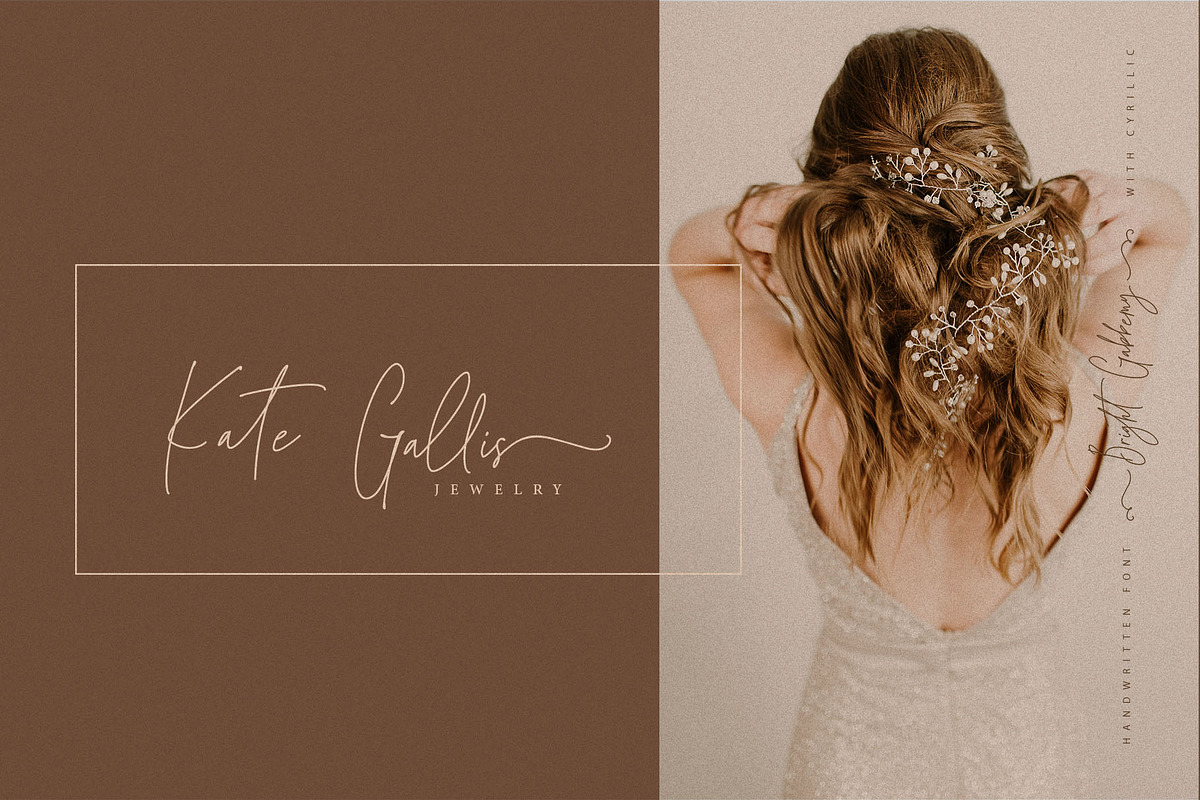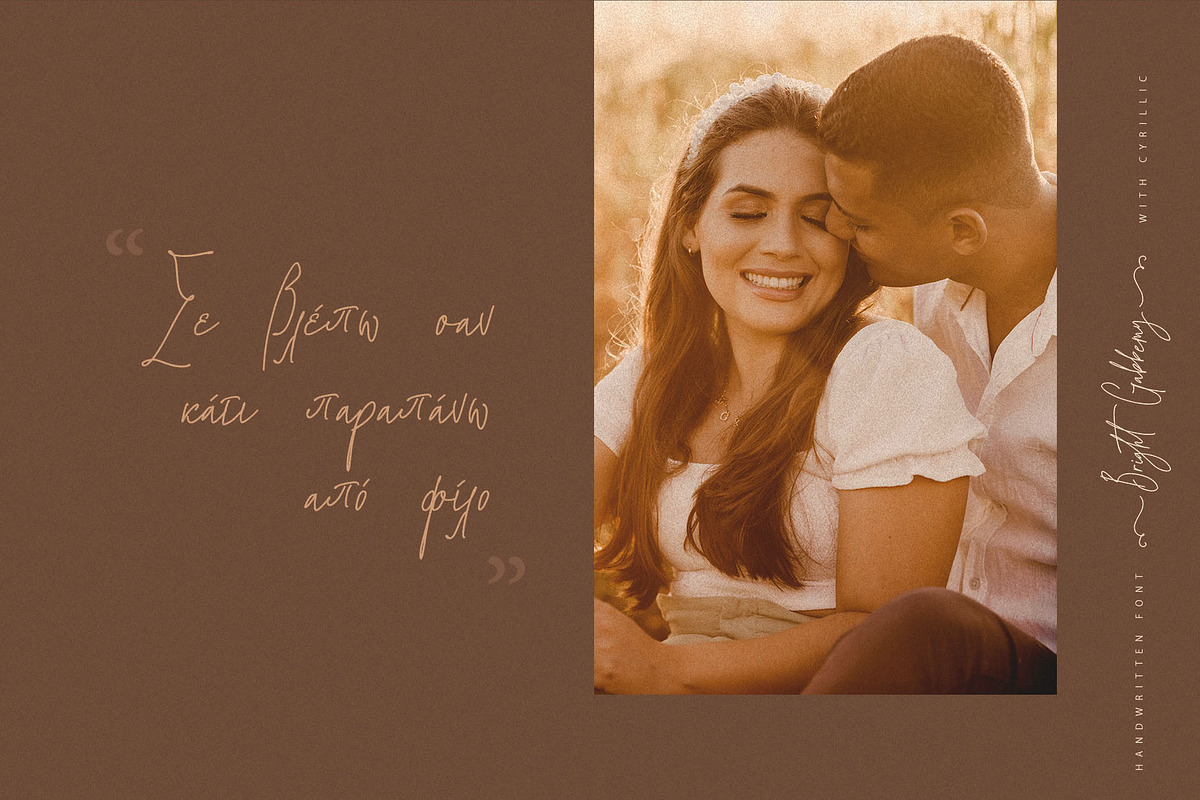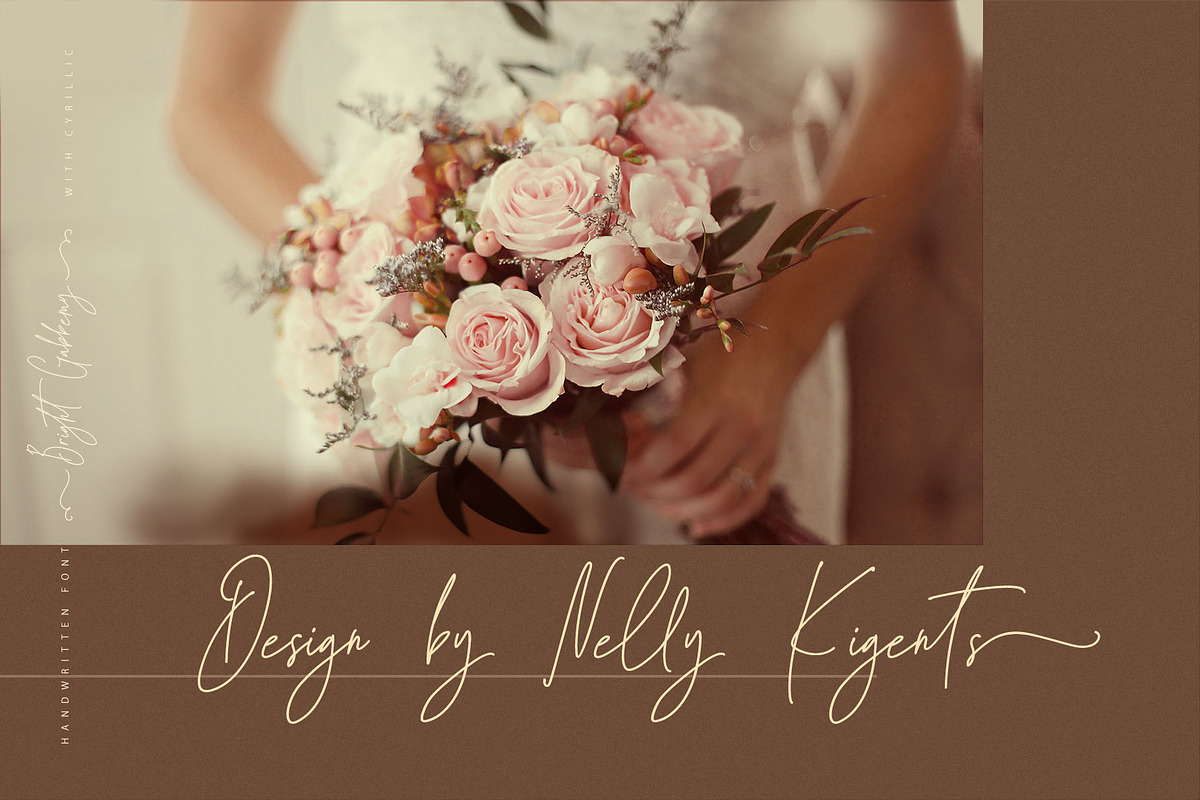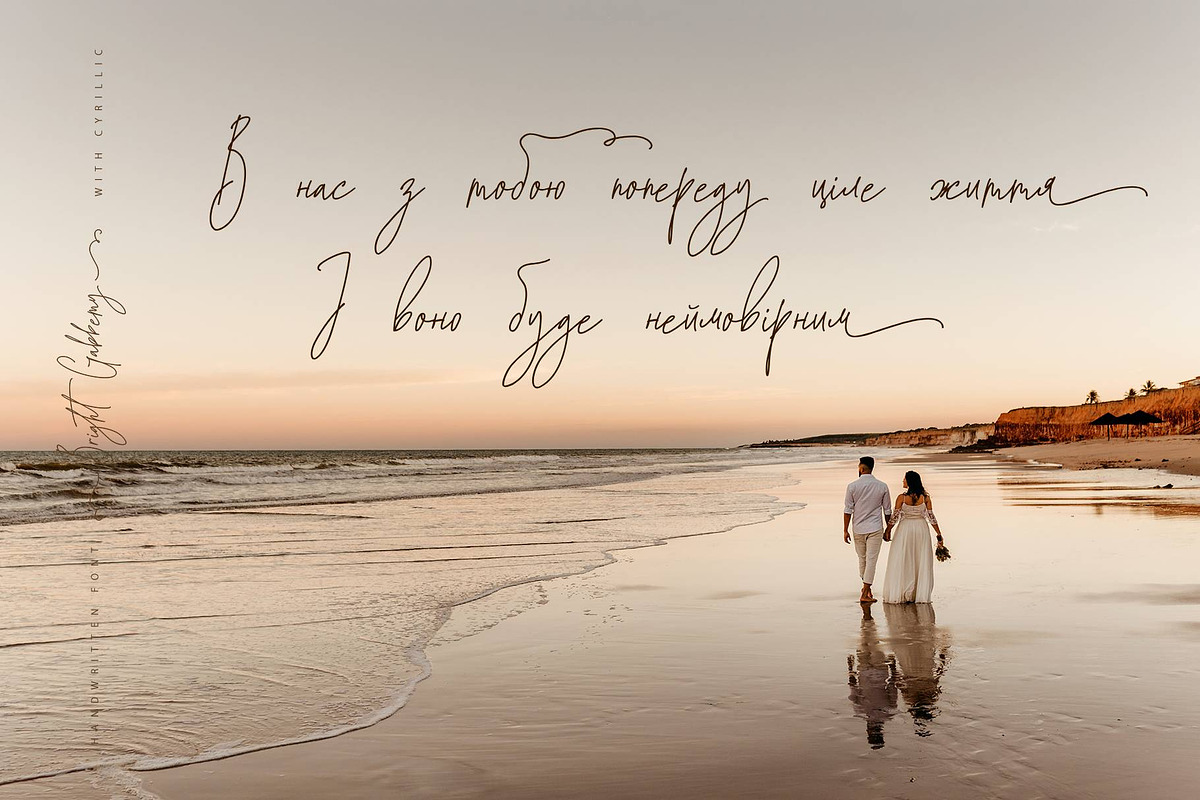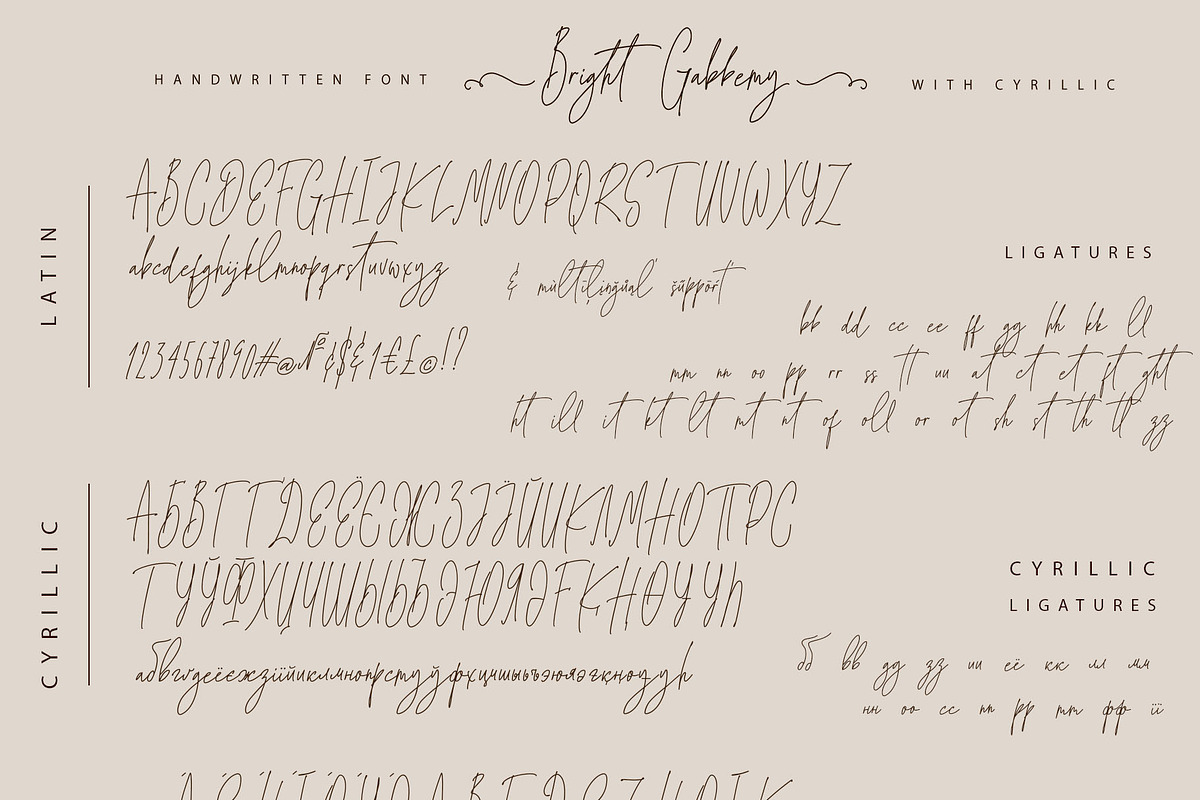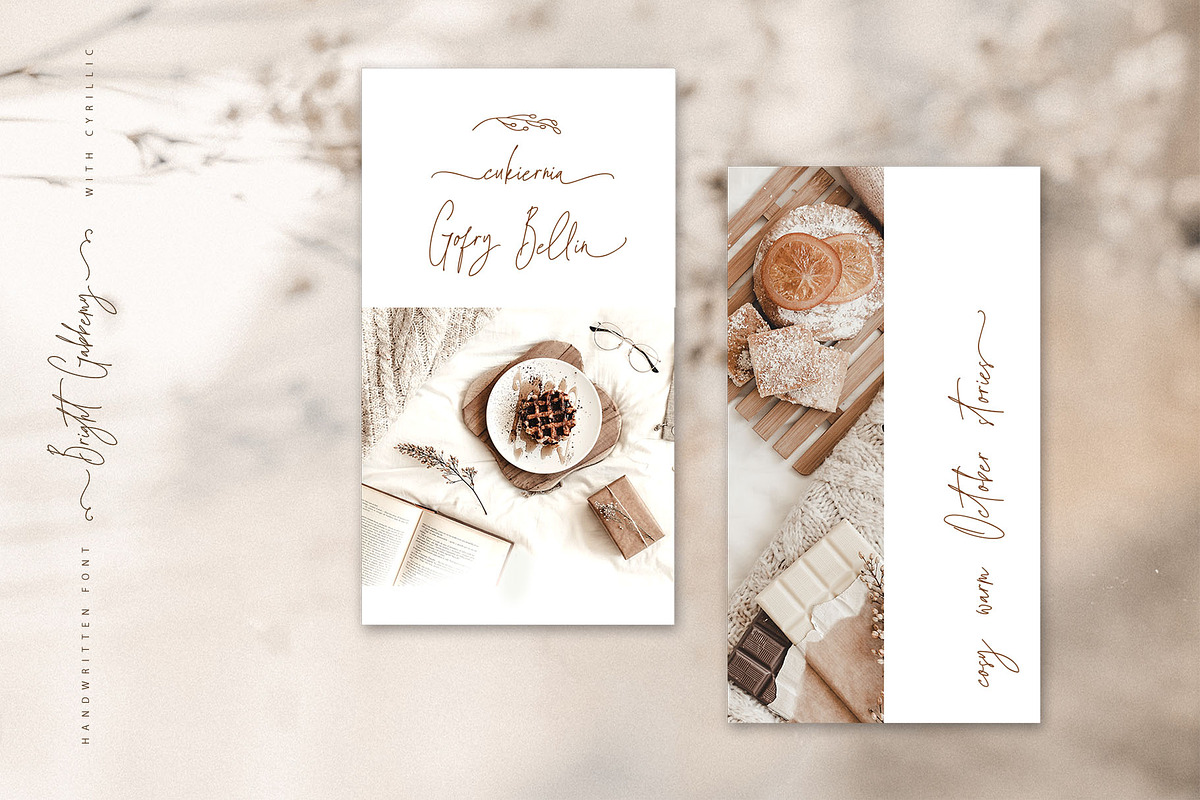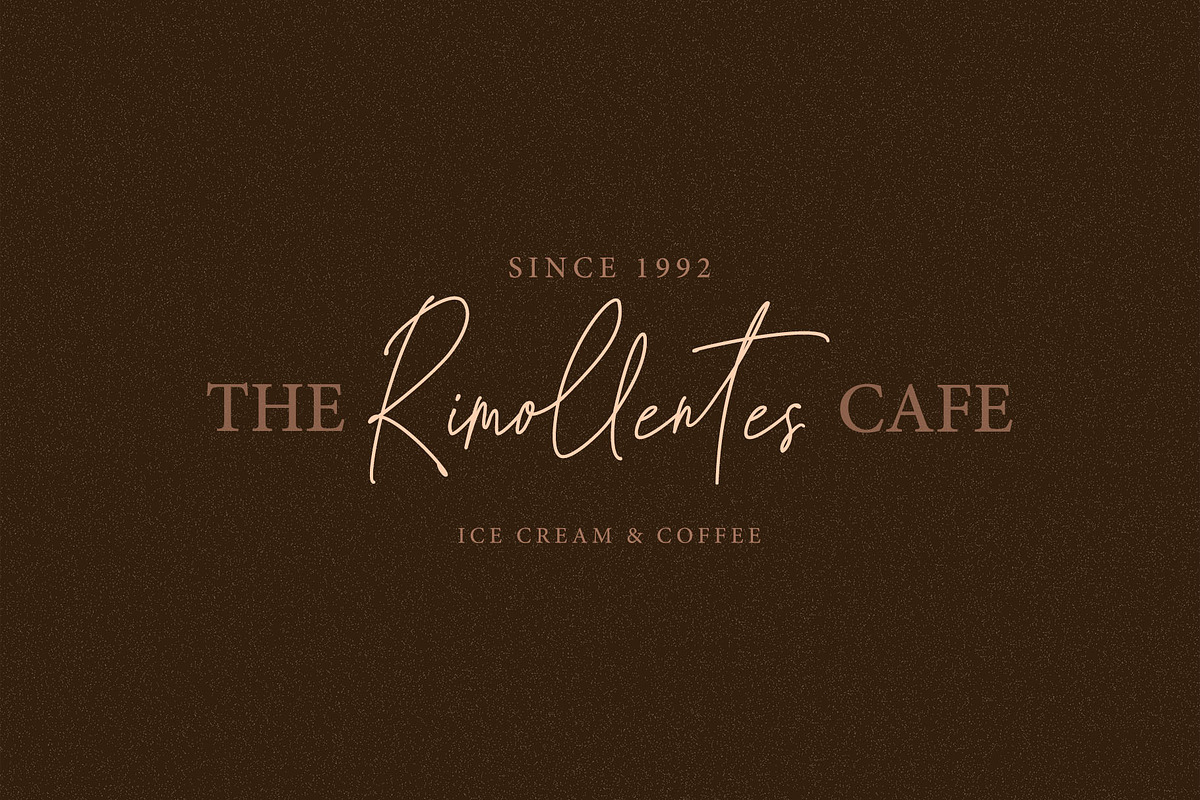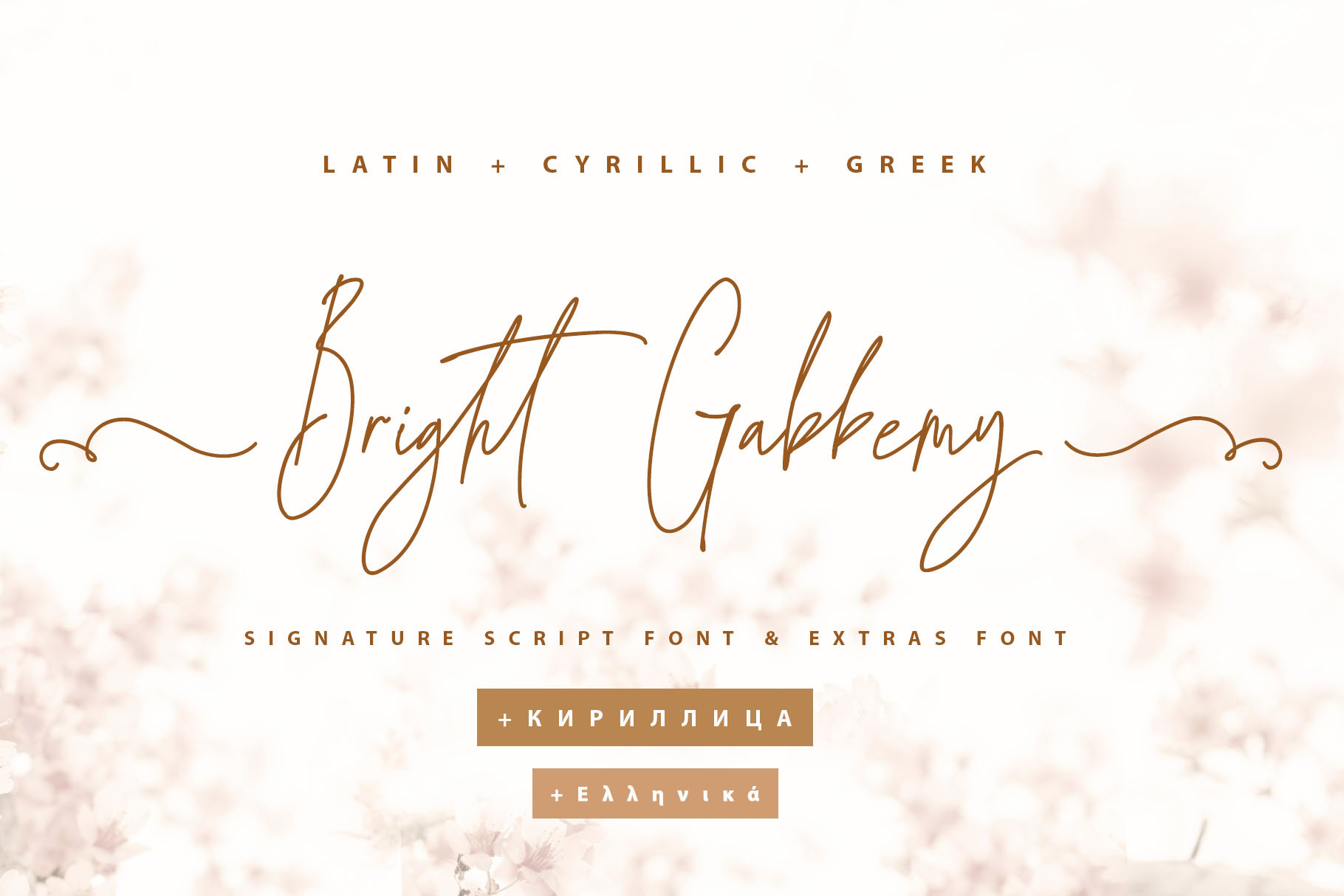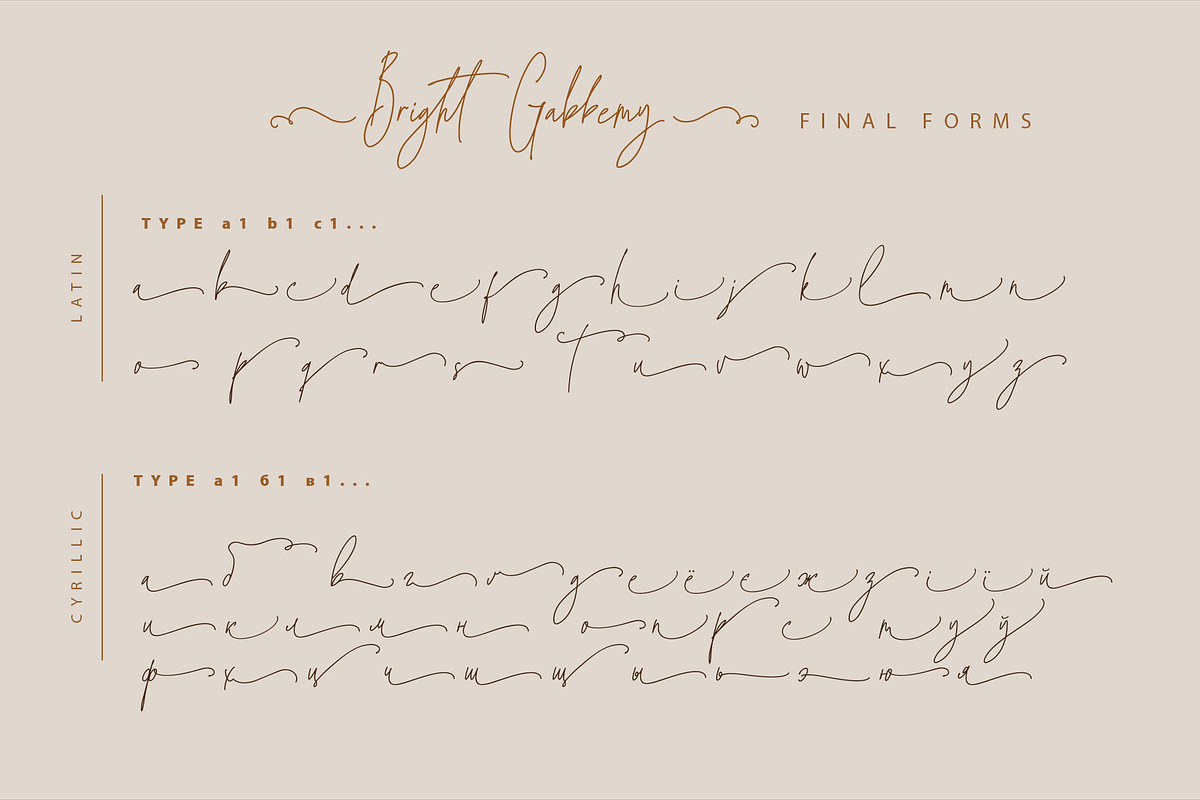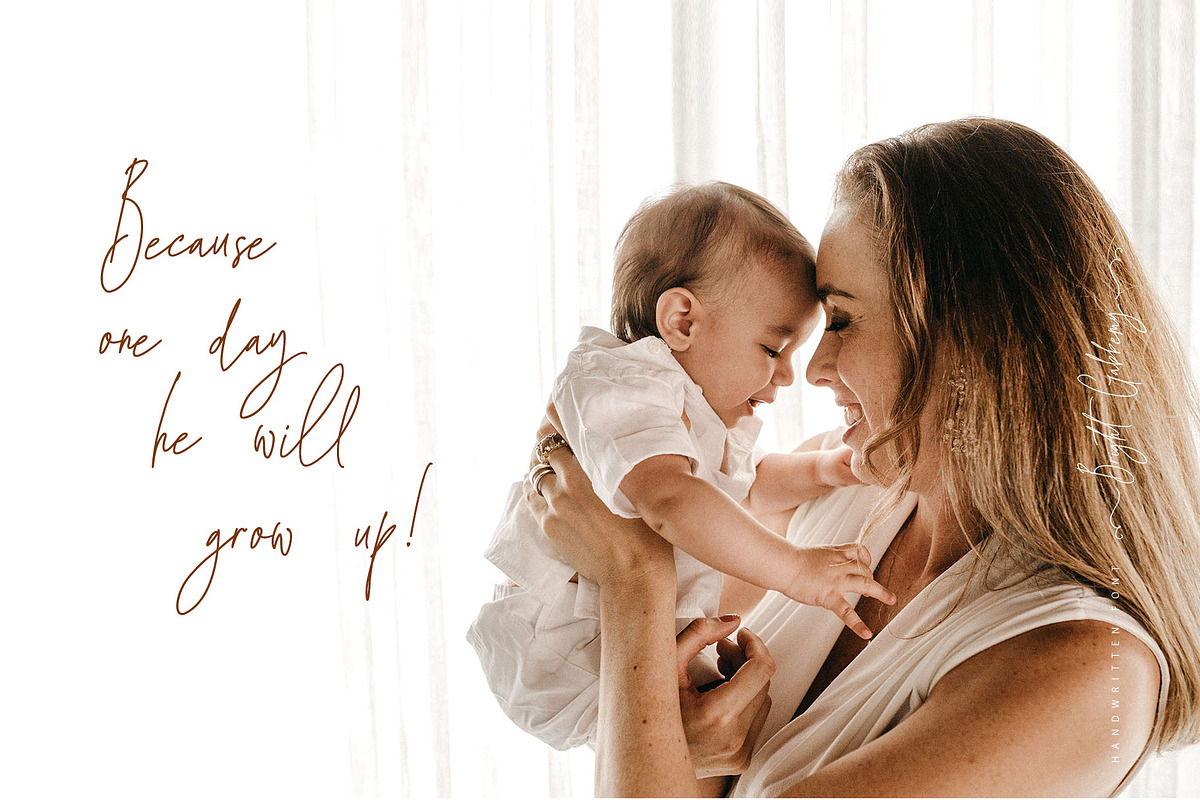
Bright Gabbemy Cyrillic Greek Font
The Bright Gabbemy Cyrillic Greek font is a charming handwritten monoline signature script font paired with an additional symbols font filled with hand-drawn extras. This versatile font pair is the ideal option for branding, logos, wedding invitations, social media posts, packaging, business cards, DIY projects, and more.
Furthermore, Cyrillic glyphs provide native language support for Cyrillic Glyphs: Bulgarian, Ukrainian, Mongolian, Kazakh, Russian, and Belarusian languages.
Bright Gabbemy Cyrillic script font contains the Cyrillic and Greek glyphs too.
The Latin script part of Bright Gabbemy contains a full set of uppercase letters, 2 full sets of lowercase letters featuring standard and final forms with flourishes or tails, and 53 ligatures to help you create an authentic handwritten calligraphy look. Alternate forms can easily be accessed by typing a letter with a number (such as a1, b1, c1) and applying OpenType features in software like Adobe Illustrator and Photoshop.
The Cyrillic and Greek character sets are fully supported, ensuring seamless designs across multiple languages. The Cyrillic portion includes uppercase letters and 2 full sets of lowercase letters with standard, initial, and final forms, accessed by typing a letter with a number (such as а1, б1, в1) and enabling OpenType features.
Bright Gabbemy Symbols is a companion font packed with over 36 lovely hand-drawn elements, floral illustrations, swashes, and decorative details designed to make your work unique and matchless. You can combine and merge these elements to create custom borders, frames, dividers, and logos. A different symbol is conveniently assigned to each uppercase, lowercase, and numeric key (0–9) in the symbols font, meaning you do not need special graphics software—simply type the letter or number you need.
With robust multilingual support covering 33 languages, including Latin glyphs for Afrikaans, Albanian, Basque, Bosnian, Catalan, Danish, Dutch, English, Estonian, Faroese, Filipino, Finnish, French, Galician, Greek, Indonesian, Irish, Italian, Malay, Norwegian Bokmål, Portuguese, Slovenian, Spanish, Swahili, Swedish, Turkish, Welsh, and Zulu, this font family is fully equipped for global creative projects.